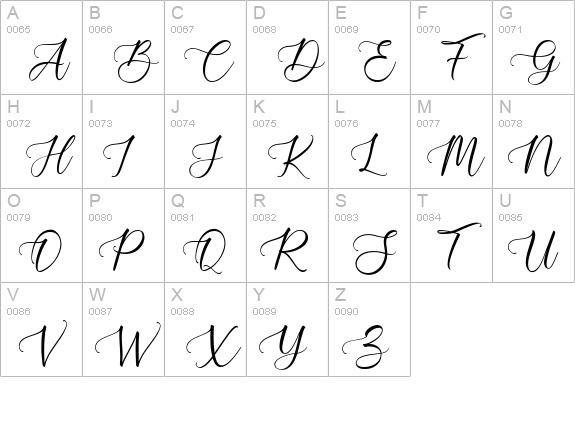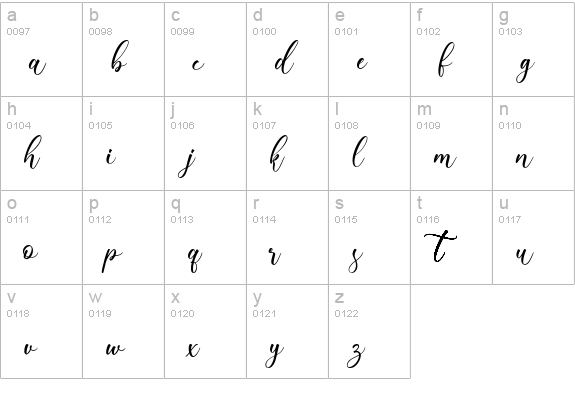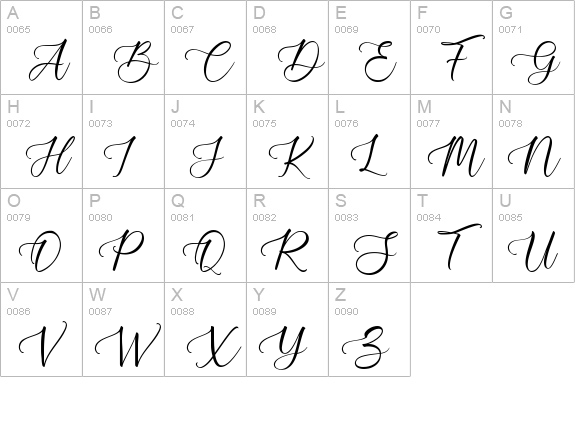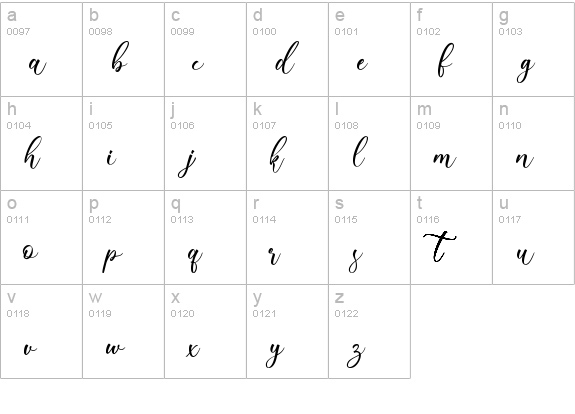
Historis Script Font is a free for personal use font in the Script > Handwritten category, designed by hanzel_space. It has been downloaded 28 times and is available for Windows, Mac and Linux.
Historis Script Font is a stunning and elegant typeface that exudes classic charm and sophistication. With its flowing lines and graceful curves, Historis Script Font is perfect for adding a touch of timeless beauty to your design projects. Whether you're creating invitations, branding materials, or anything in between, this font is sure to make a statement.